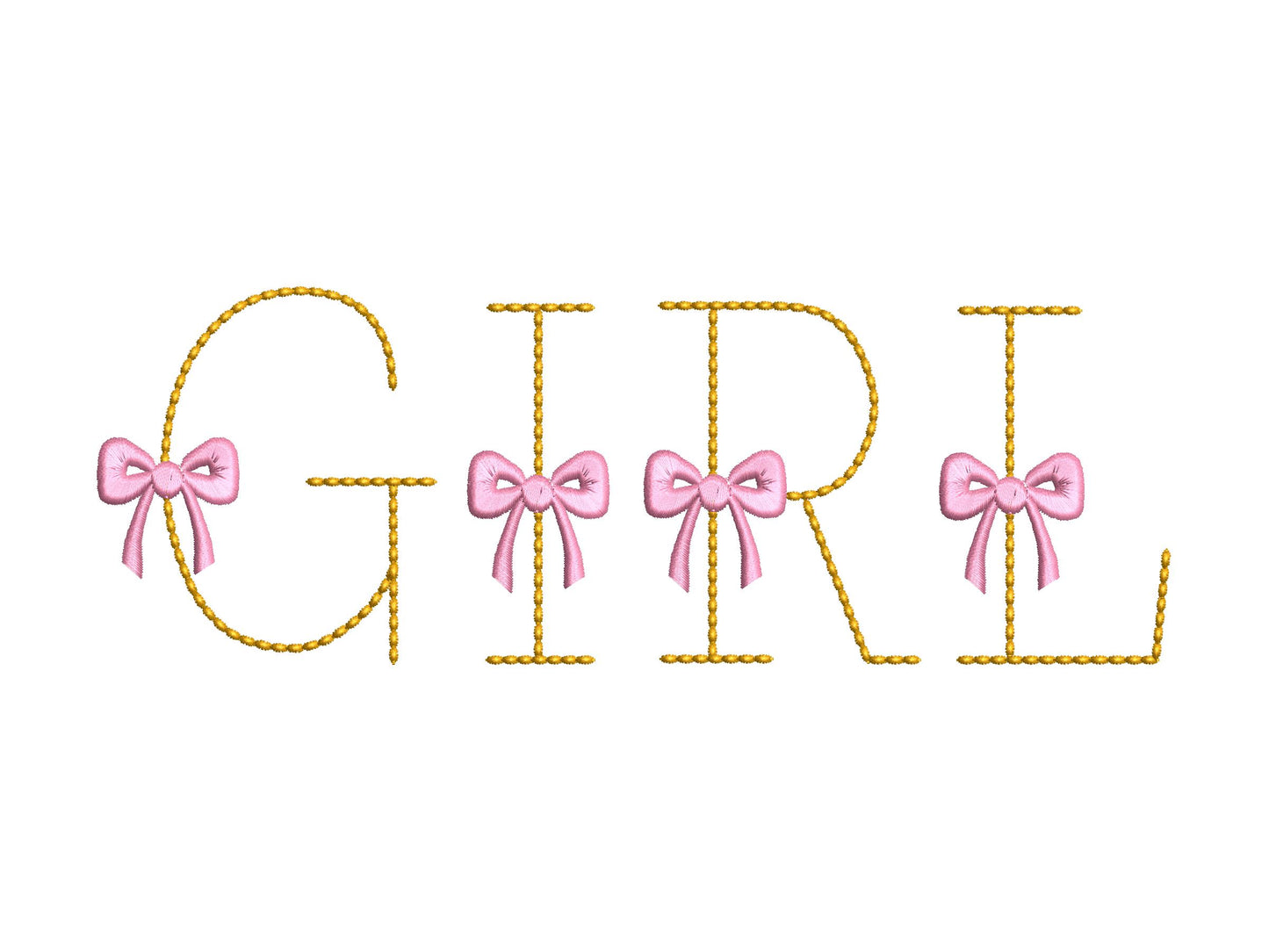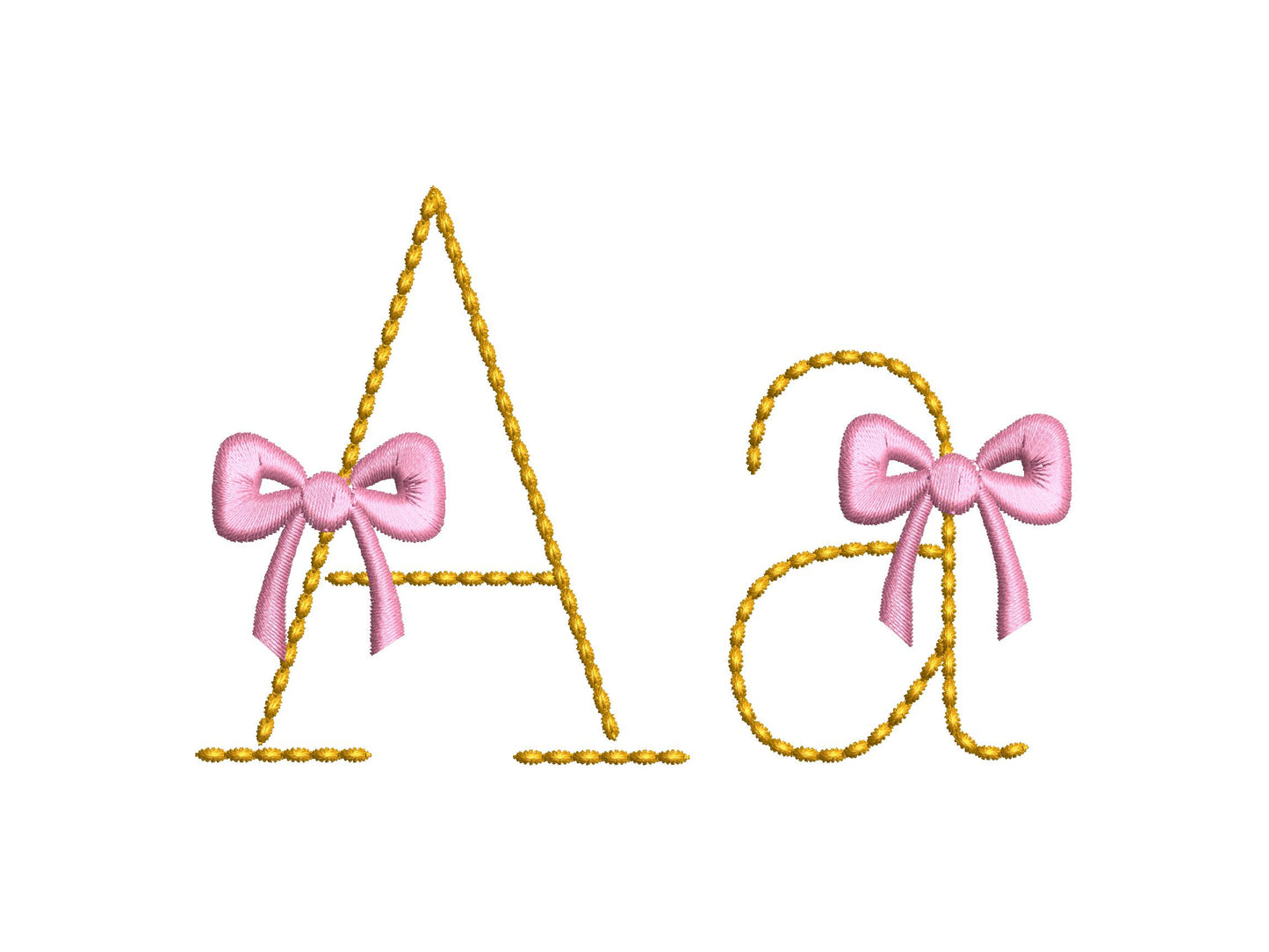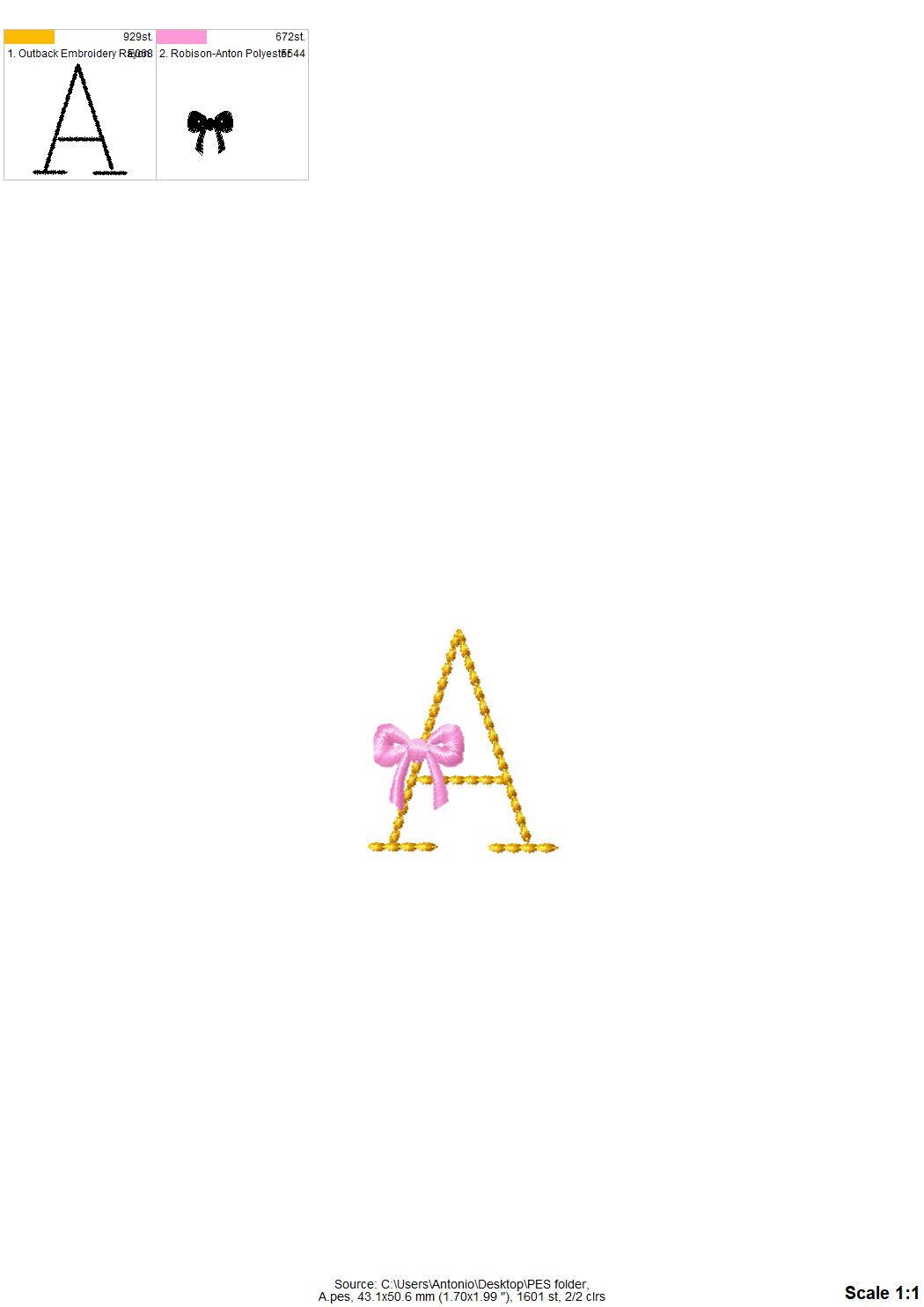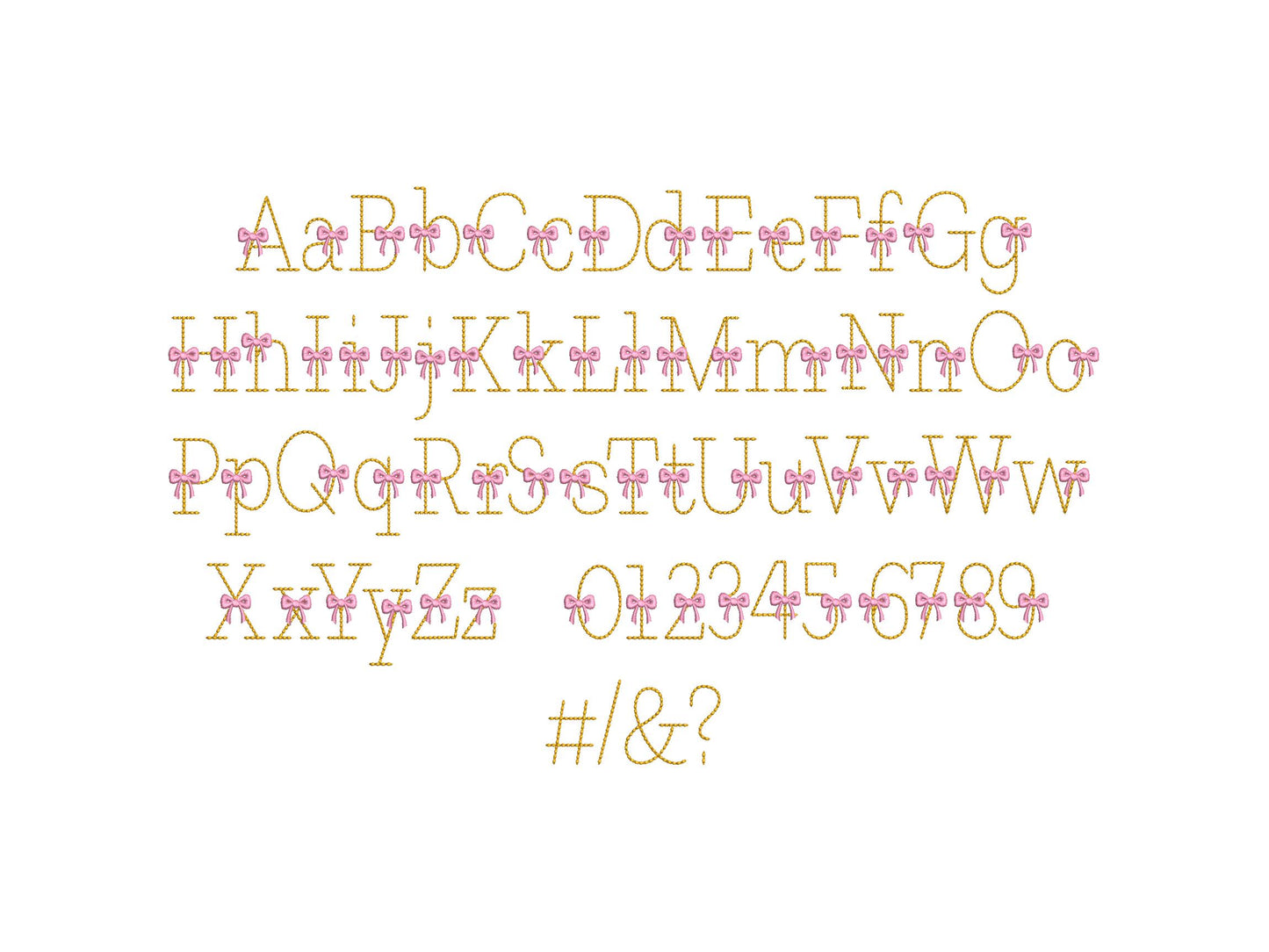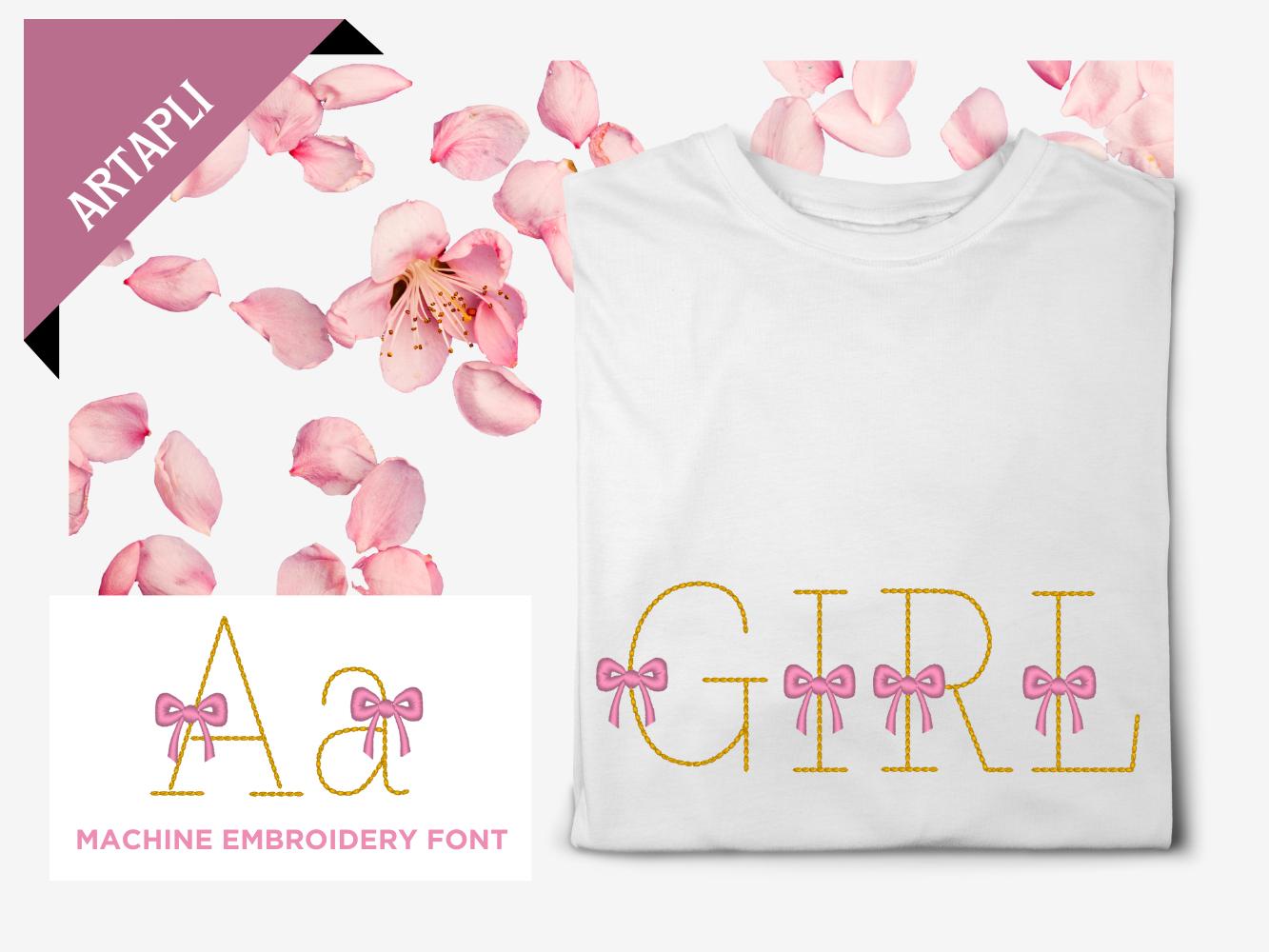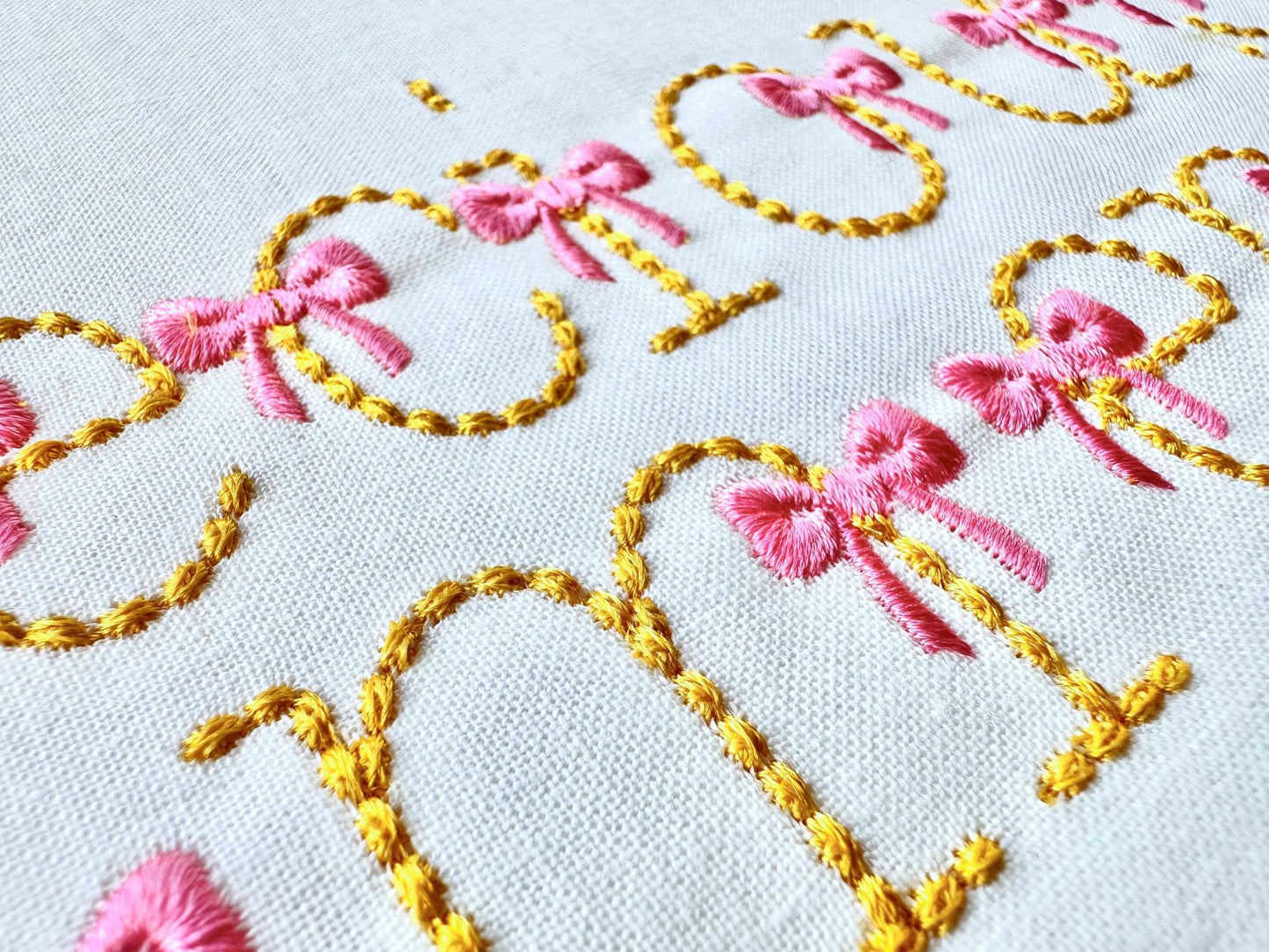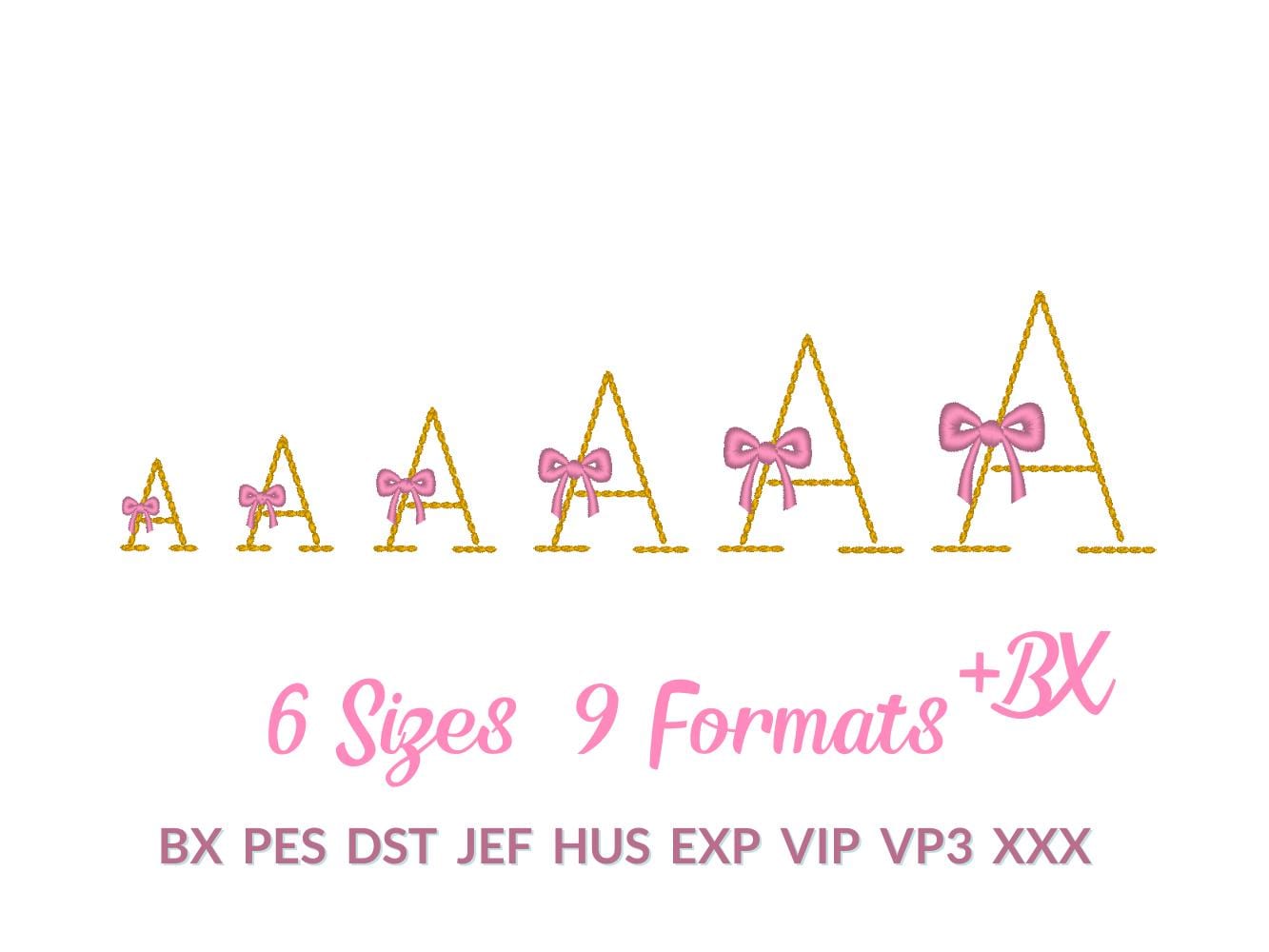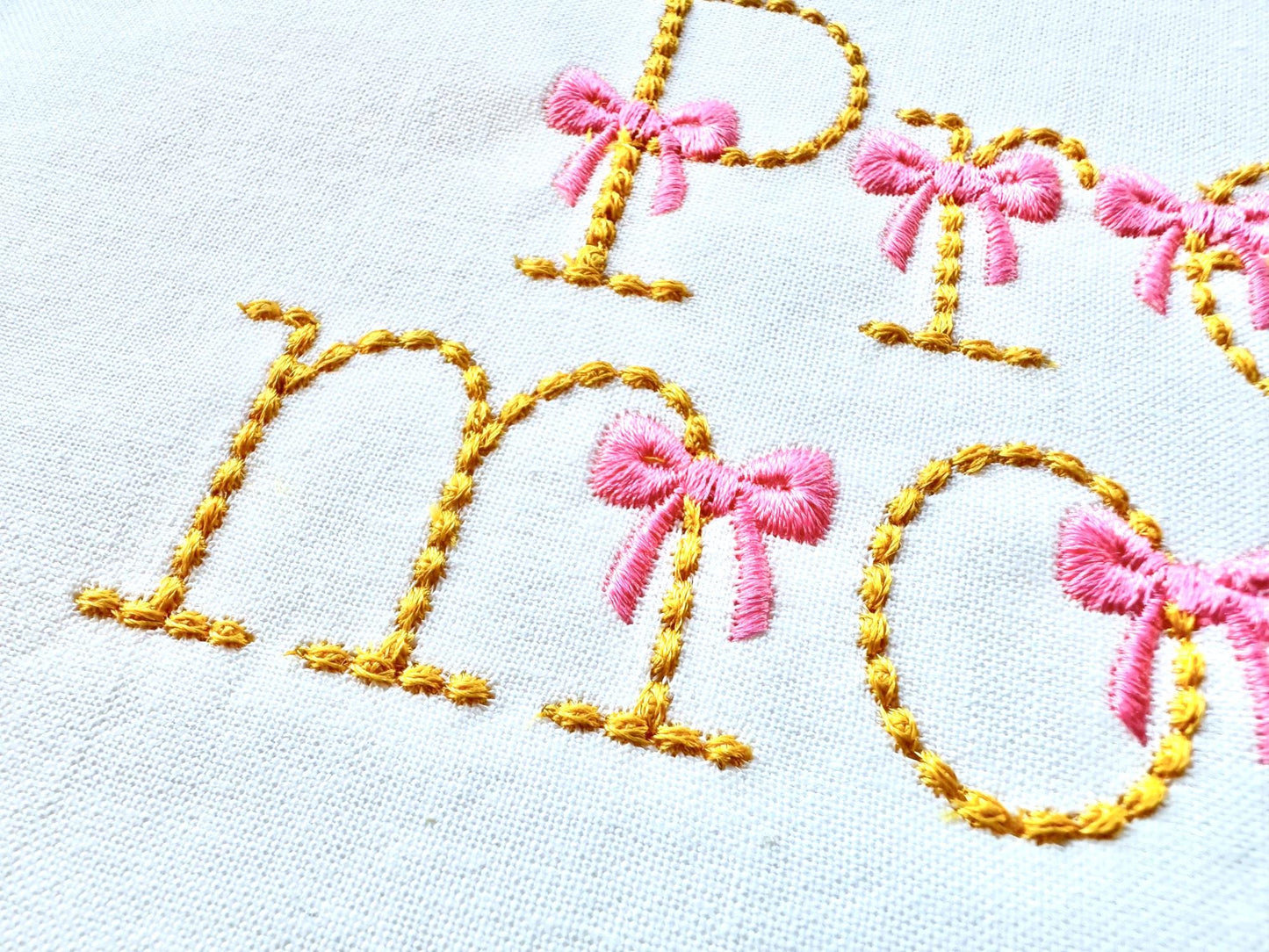
Hand Stitch Effect Font with Bow
Included: Uppercase A-Z, Lowercase a-z, Numbers 0-9, Punctuation
A small block font with a hand-stitched look and a little bow on every letter. Sweet for kids' names, baby clothes, bibs and small gifts.
Uppercase and lowercase letters, numbers 0 to 9, plus &, ?, / and a hash sign. Six small sizes: 1, 1.3, 1.6, 2, 2.4 and 3 inches. Stitched in bean stitch; you can skip the bow and stitch the letter alone.
• Hand stitch effect font with bow, bean stitch
• Uppercase, lowercase, numbers 0 to 9, symbols